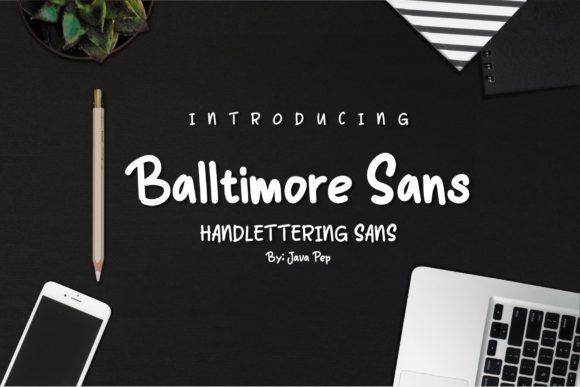
Introducing the Balltimore Font: Adding a Touch of Handcrafted Charm to Your DIY Projects
In the world of digital design, fonts play a crucial role in conveying the tone and personality of a project. For designers and crafters looking to add a natural and catchy feel to their DIY projects, the Balltimore font is an excellent choice. This hand lettering sans font has gained popularity for its unique, handcrafted aesthetic that brings a touch of warmth and personality to any design.
The Characteristics of Balltimore Font
The Balltimore font is a hand lettering sans font that boasts a distinctive, handcrafted look. Its characteristics include:
- Hand-drawn feel: Each letter is carefully crafted to give the font a personal, hand-drawn feel that sets it apart from more traditional fonts.
- Natural and organic: The font’s natural and organic look makes it perfect for DIY projects, crafts, and other creative endeavors.
- Catchy and playful: The Balltimore font has a playful, catchy vibe that’s sure to grab attention and add visual interest to your designs.
Perfect for DIY Projects
The Balltimore font is ideal for a wide range of DIY projects, including:
- Crafting and scrapbooking: Add a personal touch to your scrapbooking and crafting projects with the Balltimore font’s unique, handcrafted look.
- Sign making and lettering: Create eye-catching signs and lettering with the Balltimore font’s bold, playful style.
- Branding and packaging: Use the Balltimore font to add a touch of personality to your branding and packaging designs.
Why Choose the Balltimore Font?
With so many fonts to choose from, why should you choose the Balltimore font for your DIY projects? Here are just a few reasons:
- Unique and distinctive: The Balltimore font’s handcrafted look sets it apart from more traditional fonts and adds a touch of personality to your designs.
- Easy to read: Despite its handcrafted look, the Balltimore font is easy to read and understand, making it perfect for a wide range of applications.
- Versatile: The Balltimore font can be used for a wide range of DIY projects, from crafting and scrapbooking to sign making and lettering.
Tips for Using the Balltimore Font
To get the most out of the Balltimore font, here are a few tips to keep in mind:
- Use it sparingly: While the Balltimore font is perfect for adding a touch of personality to your designs, it’s best to use it sparingly to avoid overwhelming the viewer.
- Pair it with other fonts: Experiment with pairing the Balltimore font with other fonts to create a unique and visually interesting design.
- Experiment with colors and textures: Add an extra layer of depth and interest to your designs by experimenting with different colors and textures.
| Font Name | Balltimore Font |
| Author | JavaPep |
The Balltimore font is a versatile and charming hand lettering sans font that’s perfect for adding a natural and catchy feel to your DIY projects. With its unique, handcrafted look and easy-to-read style, it’s an excellent choice for designers and crafters looking to add a touch of personality to their designs. Whether you’re working on a crafting project, creating signs and lettering, or designing branding and packaging, the Balltimore font is sure to bring a touch of warmth and personality to your work.
So why not give the Balltimore font a try? With its versatility, charm, and handcrafted aesthetic, it’s sure to become a favorite in your design toolkit.